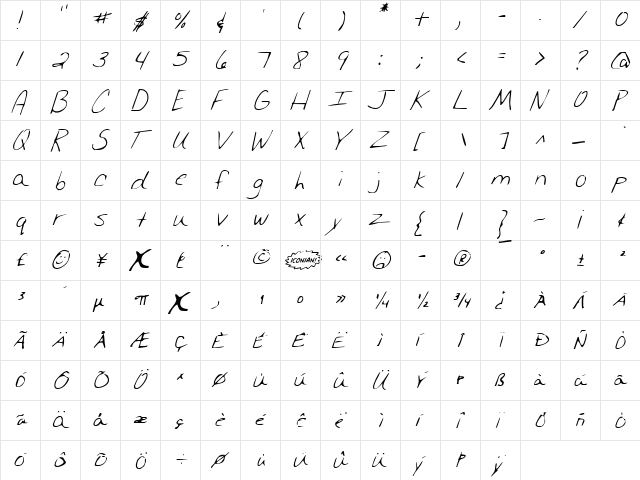
Merri Christina Italic Italic
| Designer | Dan Zadorozny |
Design Context for Merri Christina Italic Typeface
Merri Christina Italic takes a measured approach to typography — its balanced proportions and neutral character make it a reliable workhorse for both digital and print work. Its italic angle brings a sense of urgency and motion to the letterforms.
Pro Tip: Use Merri Christina Italic for emphasis, pull quotes, and subheadings where its slanted energy can add rhythm to the layout.